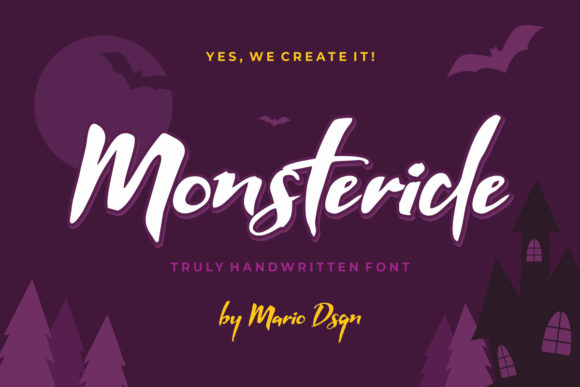
Introducing Monsteride Font, the captivating script font that will ignite your creative flair and leave a lasting impression on your audience.
Step into a world of casual elegance, where Monsteride's graceful curves and playful personality dance across your designs. Its balanced weight and captivating variation evoke a sense of authenticity and warmth, making your words come alive with a touch of charm.
Designed with precision by the renowned MarioDsgn, Monsteride embodies the perfect harmony between legibility and style. Its effortless flow invites you to express your thoughts and ideas with confidence, leaving a lasting impact on every project you create.
Whether you're crafting eye-catching social media posts, designing enchanting invitations, or simply adding a touch of whimsy to your everyday correspondence, Monsteride is the font that will elevate your words with effortless grace.
Immerse yourself in the world of Monsteride Font and discover the endless possibilities it holds. Let its charming script capture the essence of your brand, ignite your imagination, and inspire your creativity.